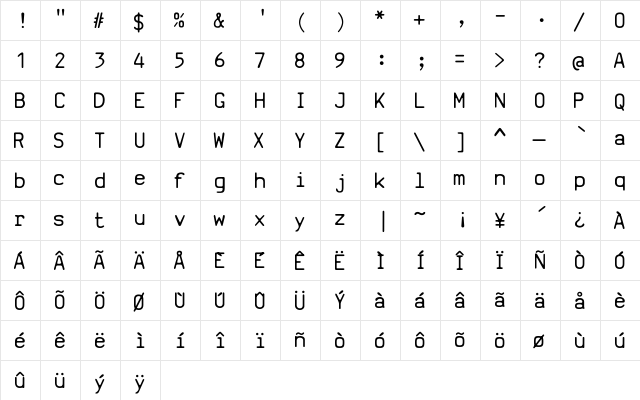
SV Basic Manual Book
| Designer | Johan Winge |
Design Context for SV Basic Manual Typeface
SV Basic Manual is a composed and adaptable typeface that performs quietly and consistently across a wide range of design contexts.